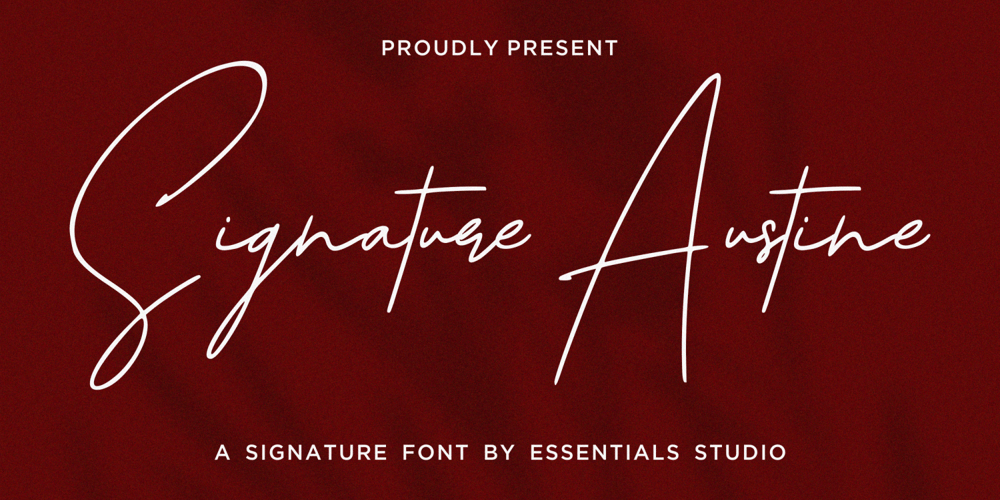
Signature Austine Font Family was designed by Sulthan Mada Maulana Tsani and published by Essentials Studio. Signature Austine contains 1 styles and family package options. Signature Austine Is a A Monoline Signature FontSignature Austine is perfect for product packaging, branding project, megazine, social media, wedding, or just used to express words above the background.